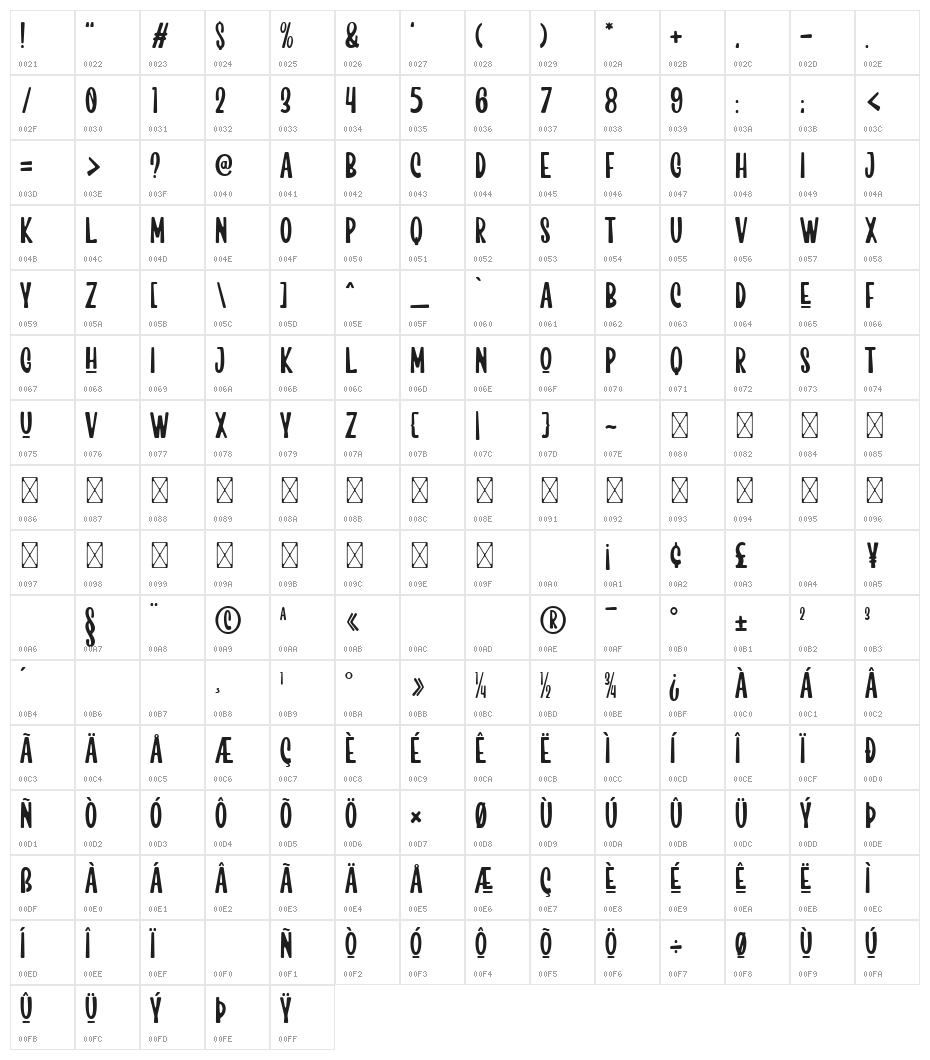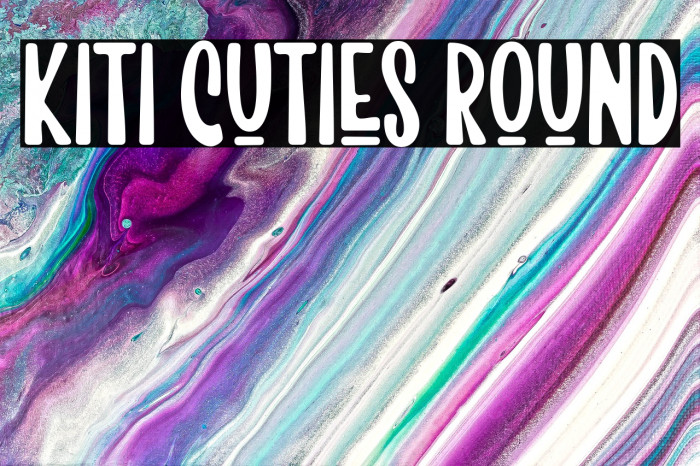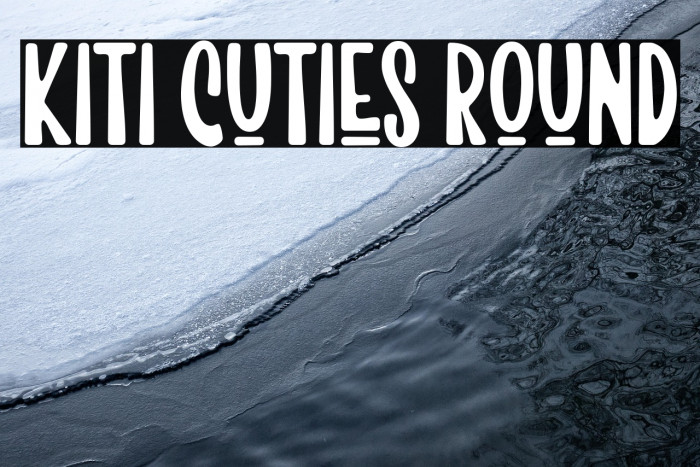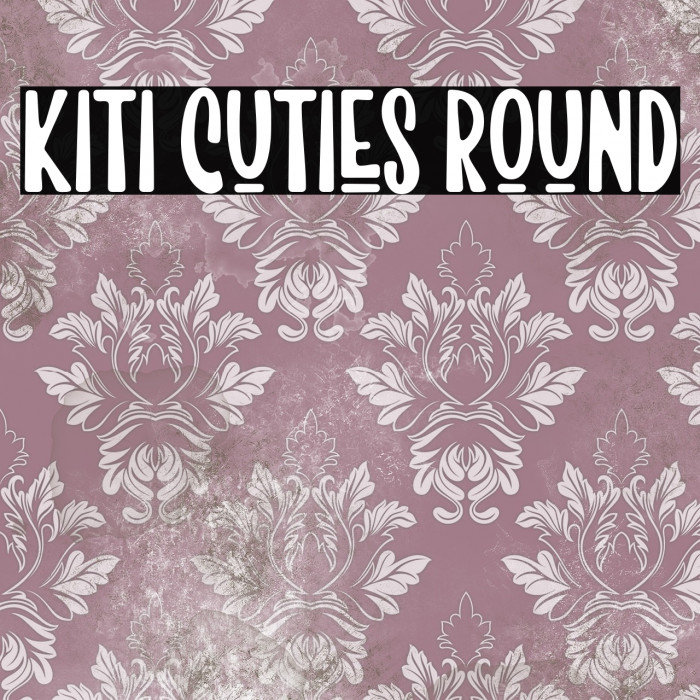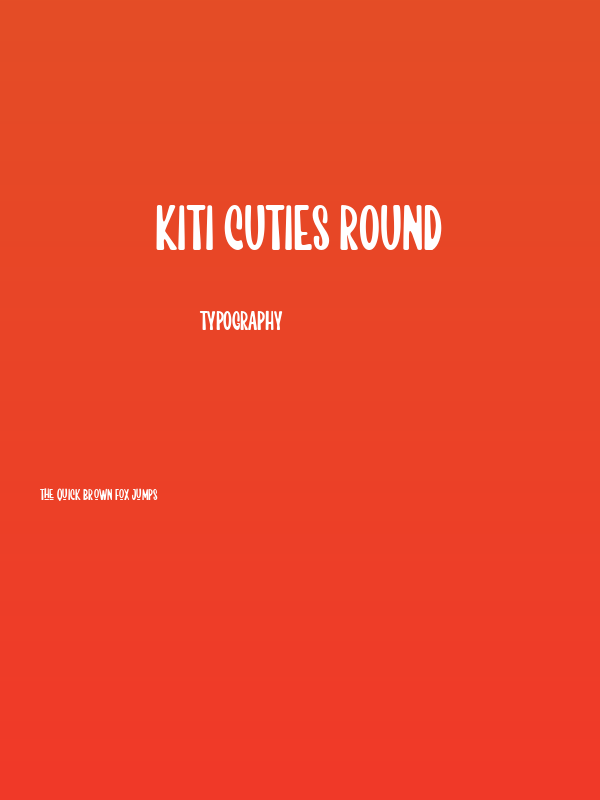
Kiti Cuties Round Font
Kiti Cuties Round Description
This playful and rounded font features bold, thick strokes with a whimsical touch. The characters are slightly condensed, giving a compact and friendly appearance. The uppercase and lowercase letters maintain a consistent style, with rounded edges and a smooth flow. The numbers and special characters follow the same playful design, making them easily recognizable and cohesive with the overall look. This font exudes a sense of fun and creativity, perfect for projects that require a lighthearted and approachable feel.
| Proposed Projects | Ideal for children's books, playful branding, greeting cards, and creative posters. |